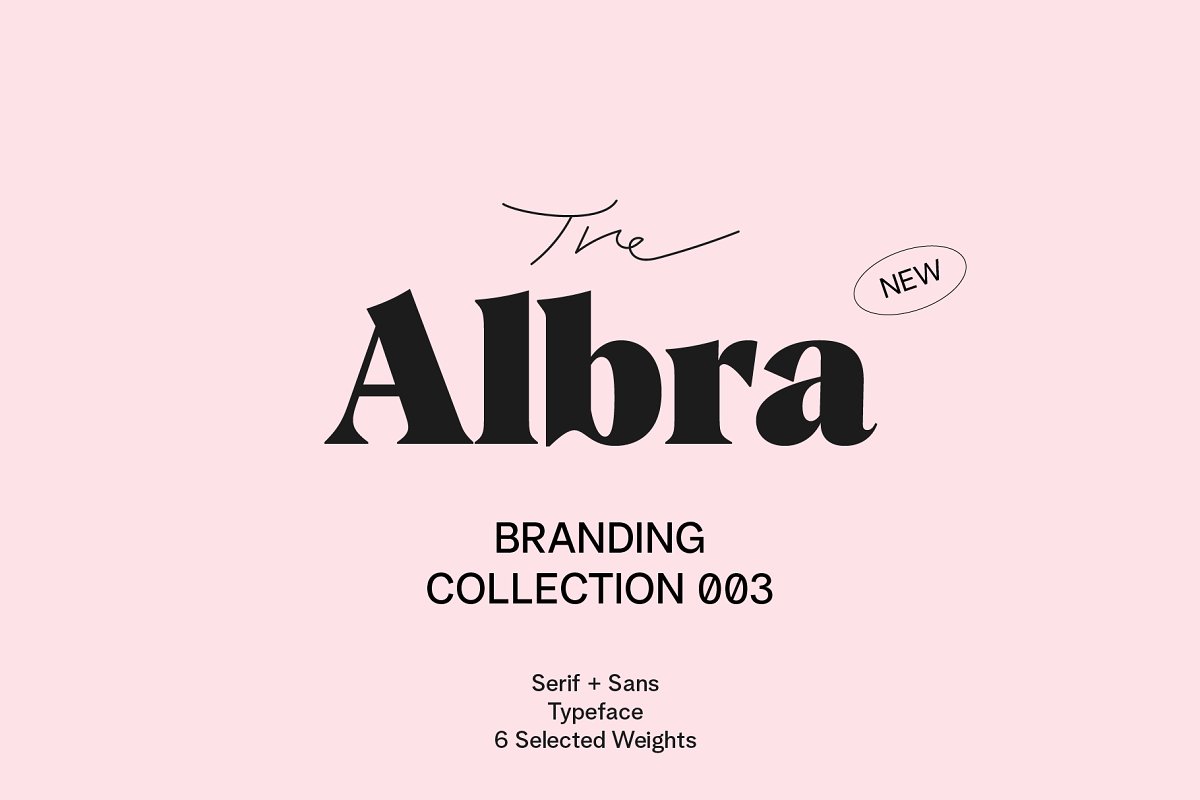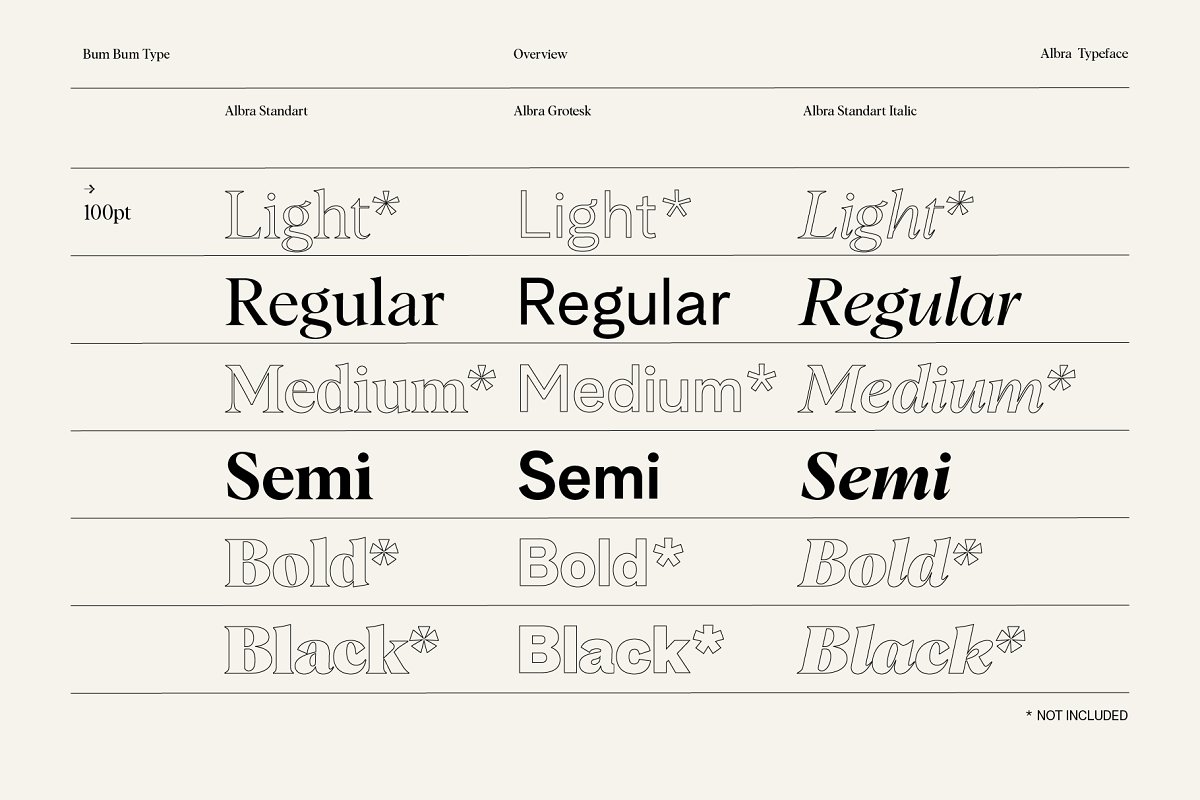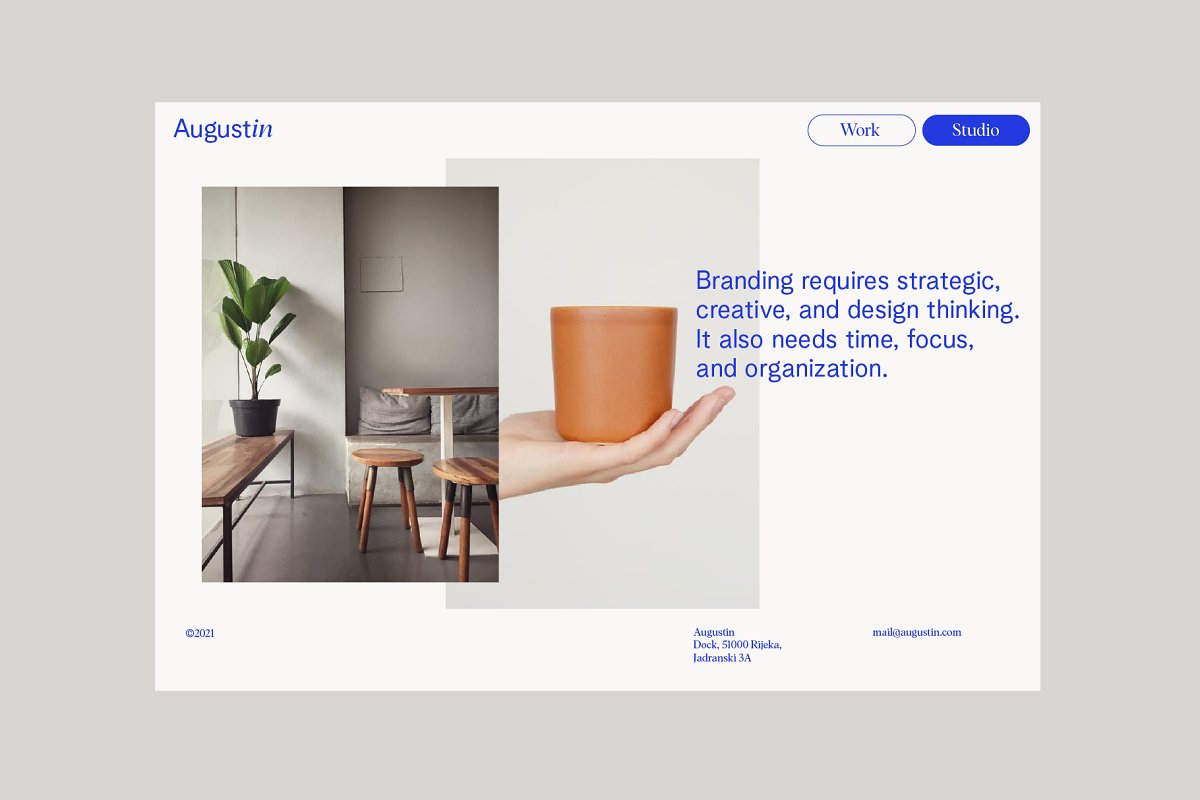
About the Albra Branding Collection 003
The Albra Branding Collection is special designed for branding, bringing the best out of Albra Collection together, Offering all the basic styles you will need for a successful project, The Collection includes: Albra Regular, Albra Regular Italic, Albra Semi, Albra Semi Italic, Albra Grotesk Regular, Albra Grotesk Semi, Every font contains more than 500 Glyphs and a wide range of weights and a large number of OpenType features
A timeless workhorse for many possibilibies,